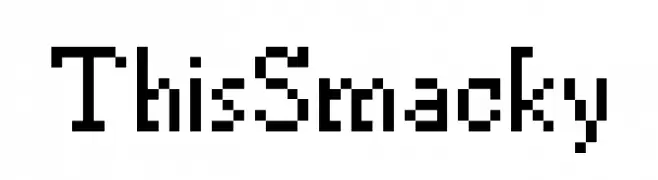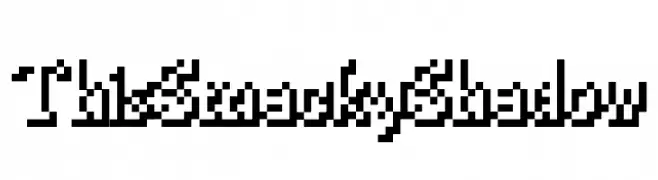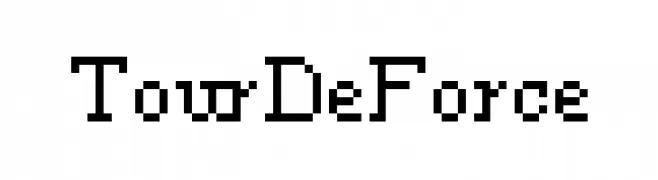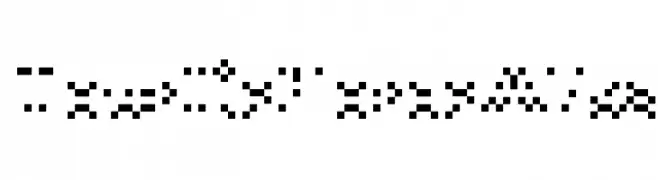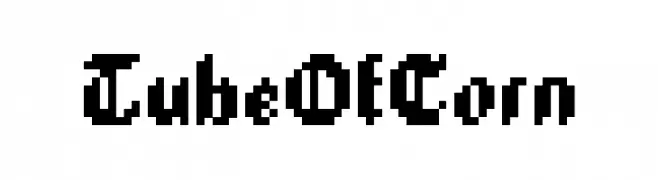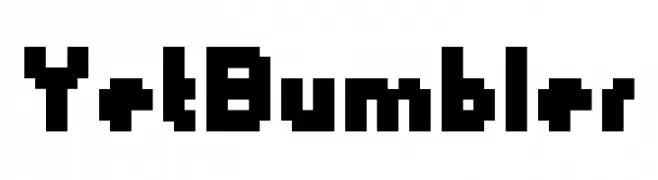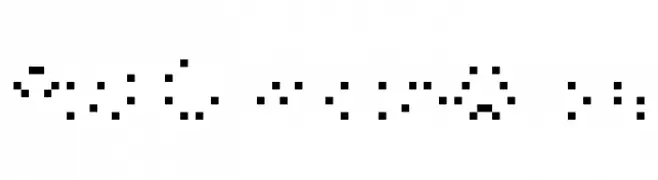
A pixelated, blocky font with a retro digital aesthetic and shadow effect.
A pixelated, retro-style font reminiscent of early digital displays.
A pixelated, retro-style font with a blocky, digital appearance.
A pixelated, retro digital-style font with a uniform, blocky appearance.
A pixelated, blocky font with a retro digital aesthetic.
A bold, pixelated font with a retro, 8-bit digital aesthetic.
A pixelated, dot-matrix style font with a retro digital aesthetic.
A pixelated, retro-style font with a blocky, digital appearance.
A tactile Braille font designed for accessibility.
A bold, pixelated font with a retro digital aesthetic.